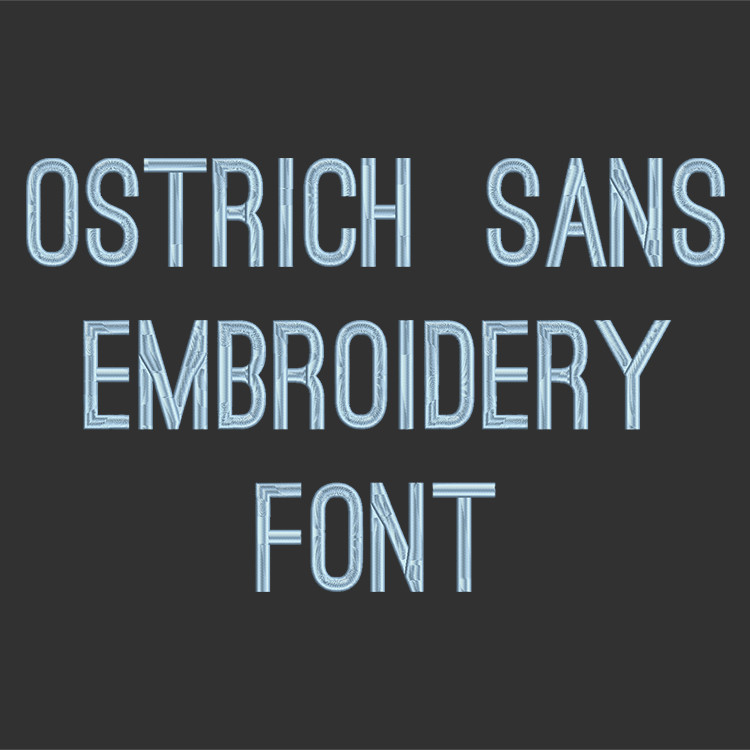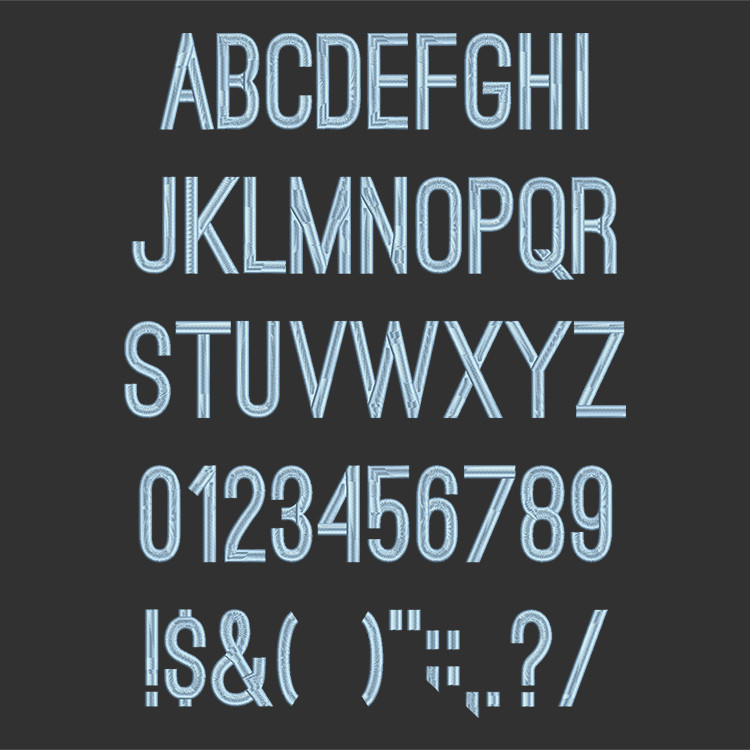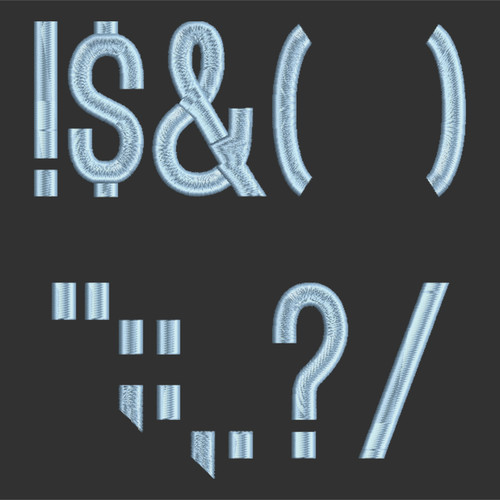
Machine Embroidery Font - Ostrich Sans Font
Title: Ostrich Sans Machine Embroidery Font
This beautiful font would look amazing as a Monogram on Totes, School bags and purses!